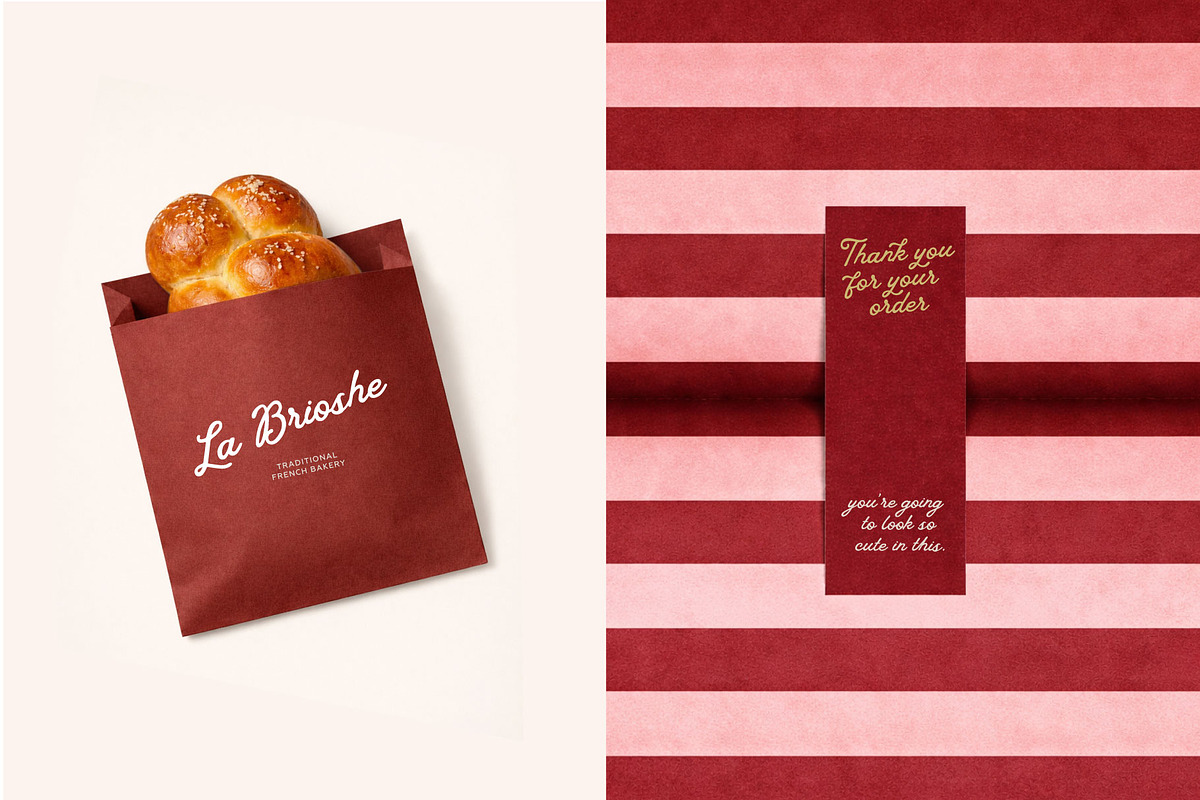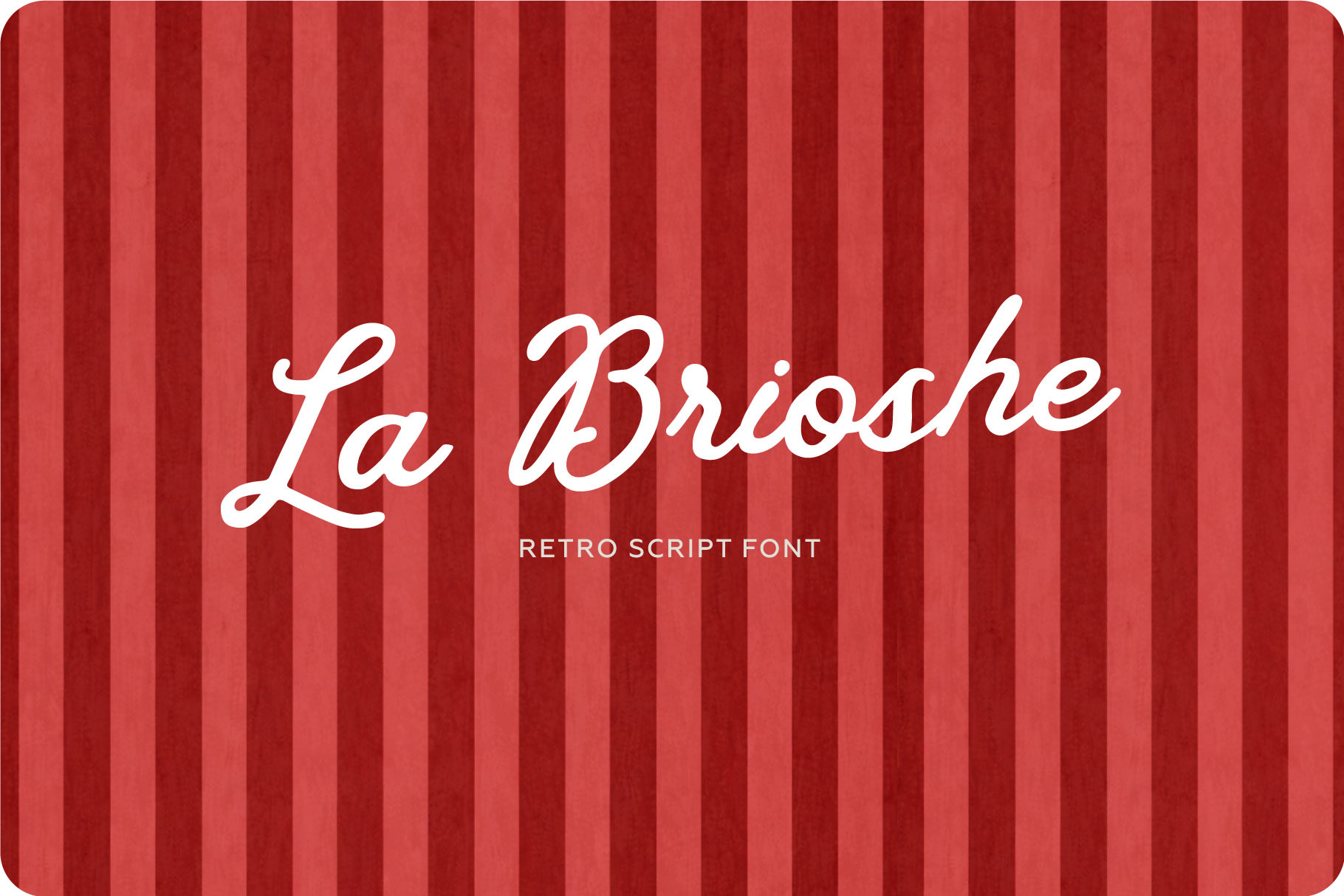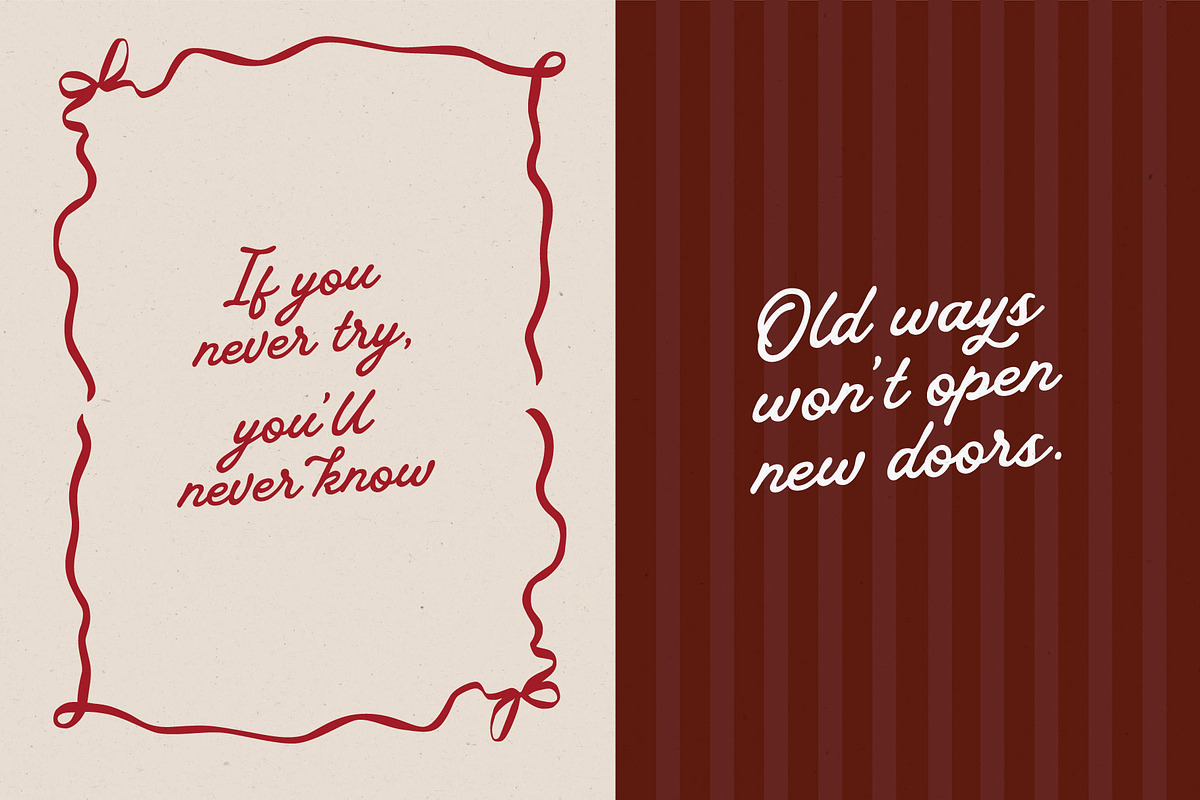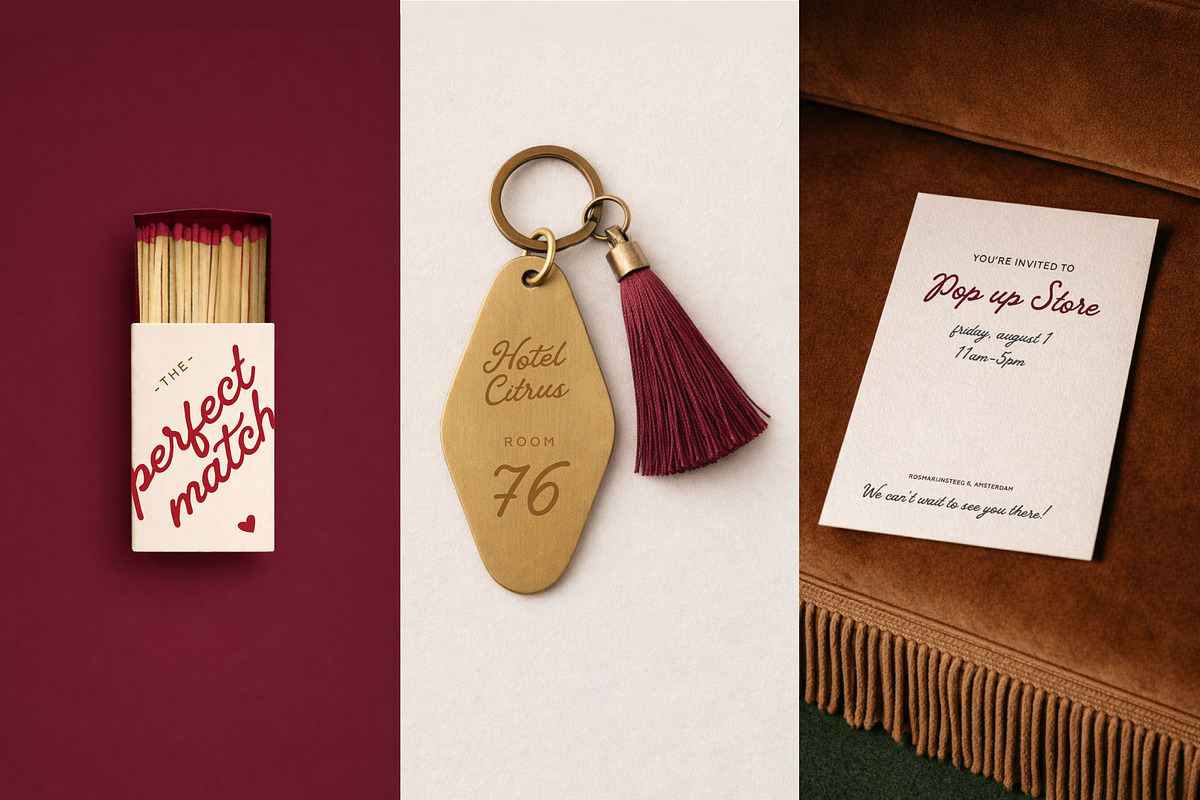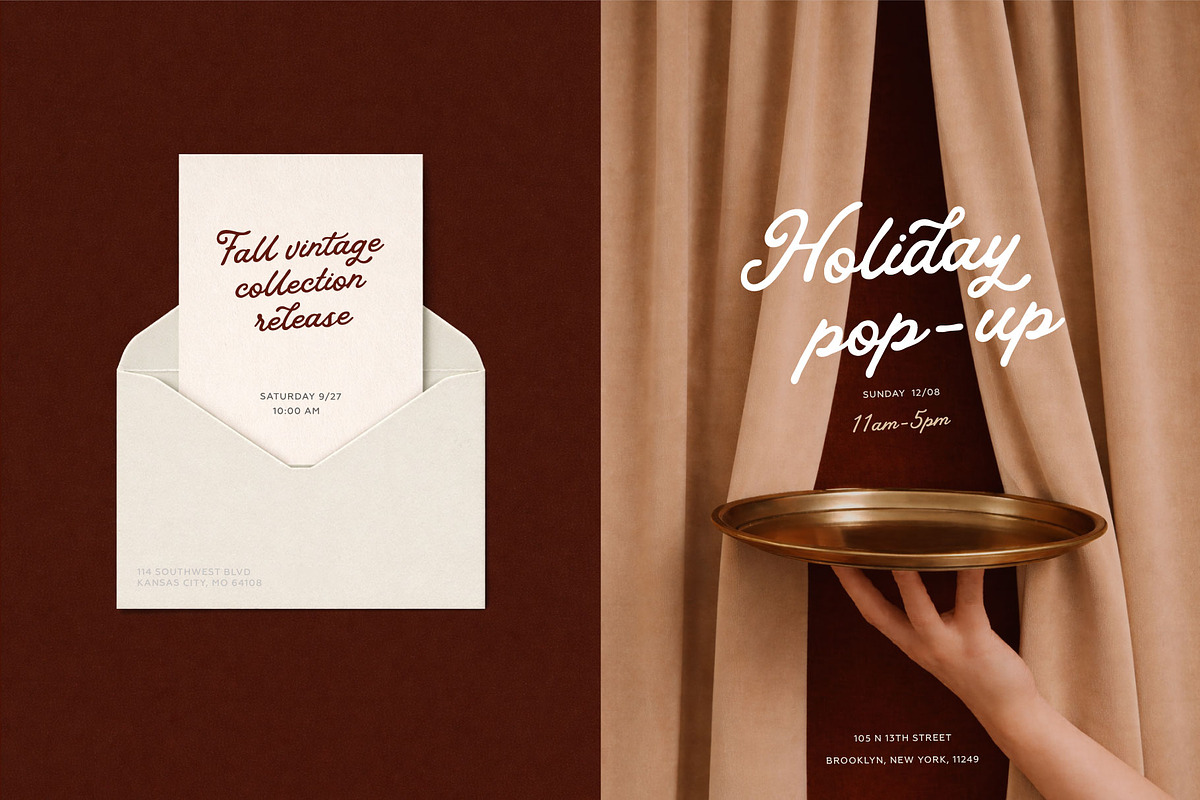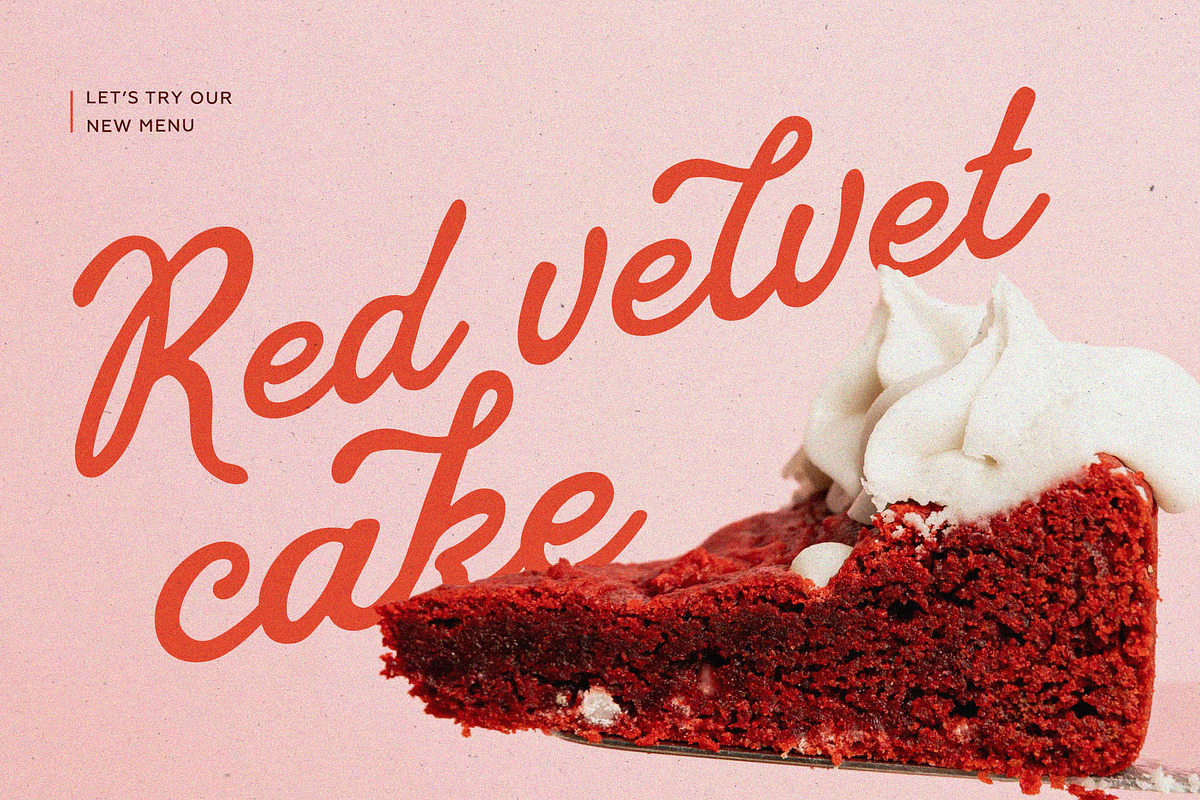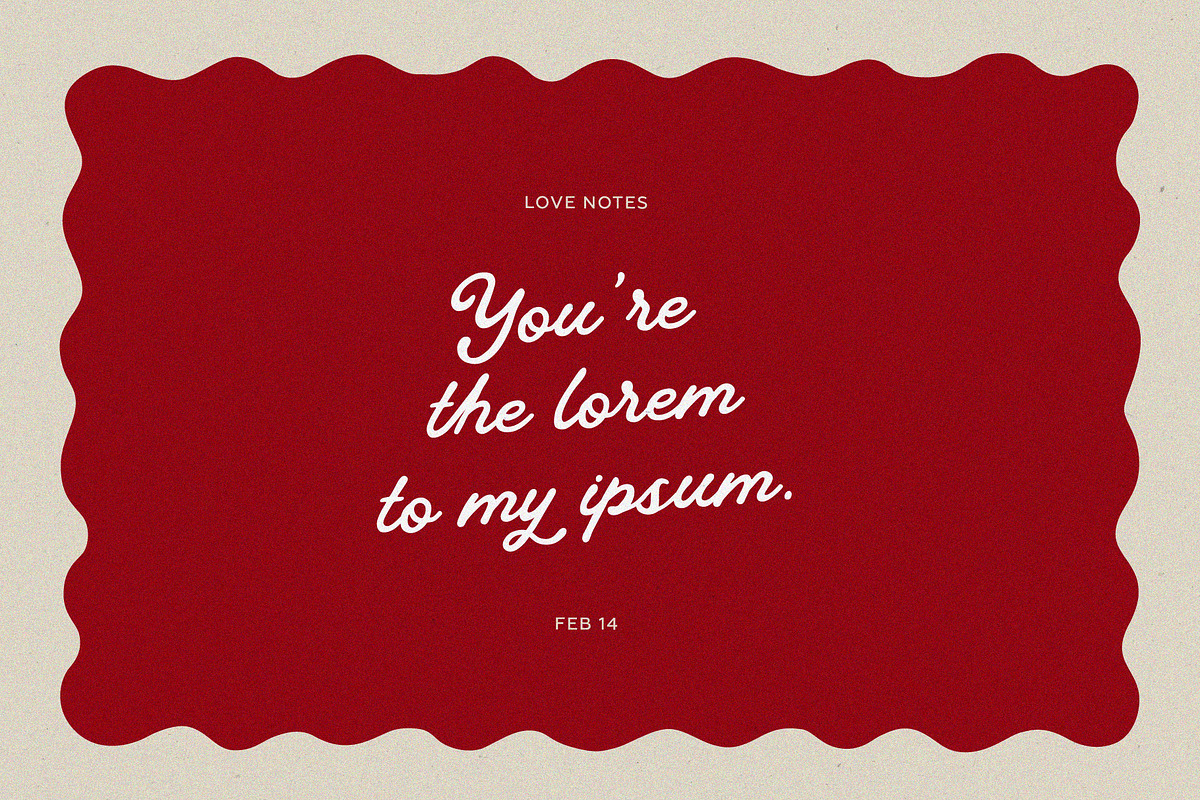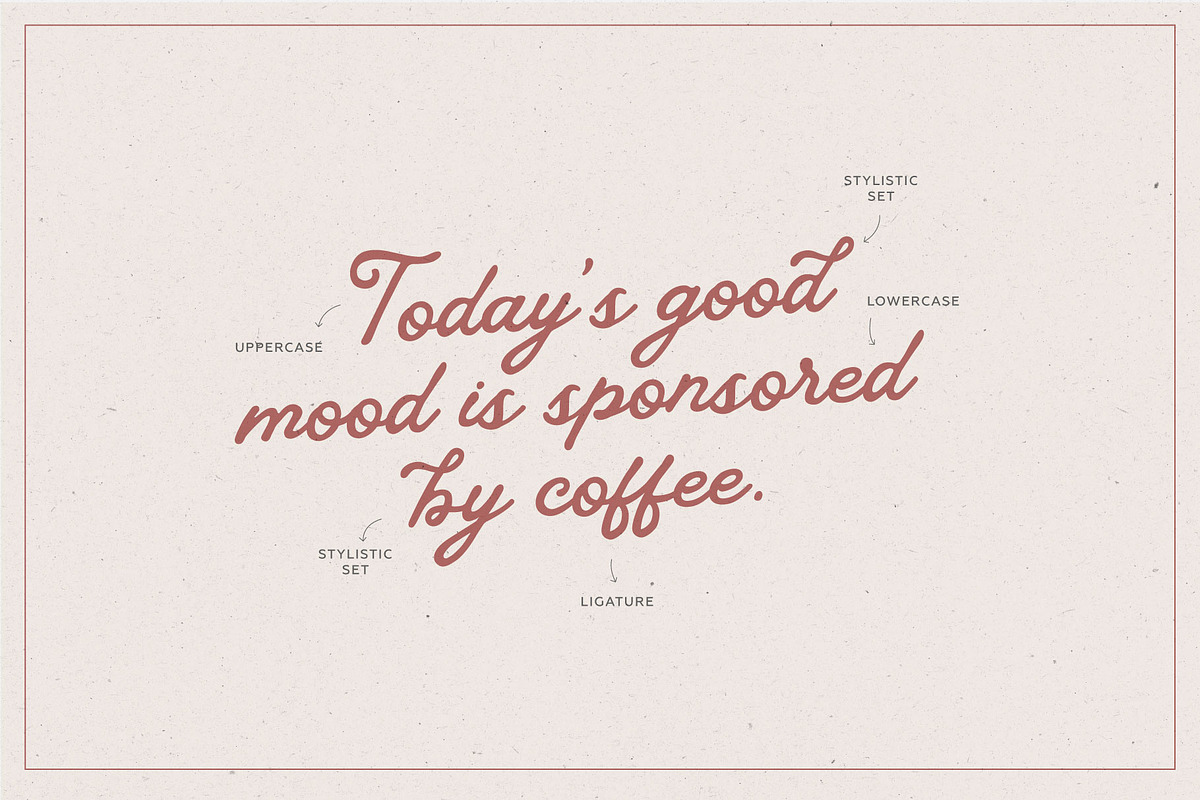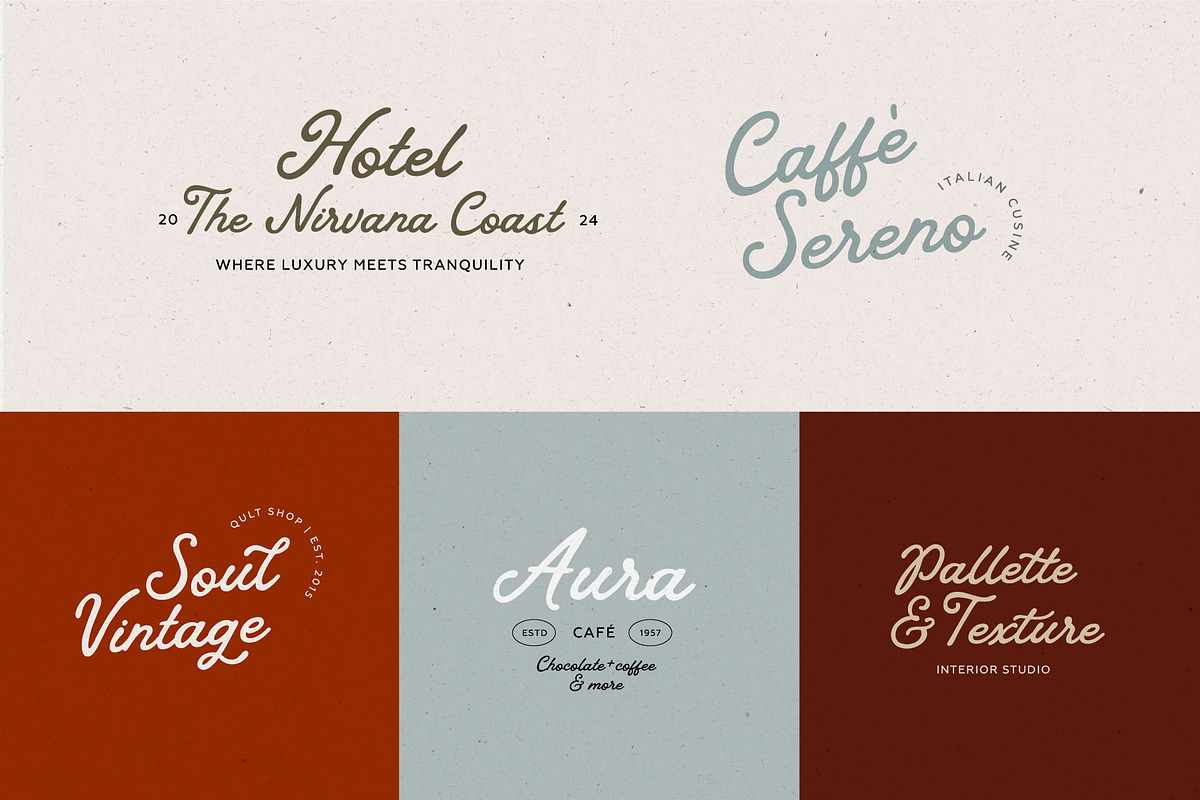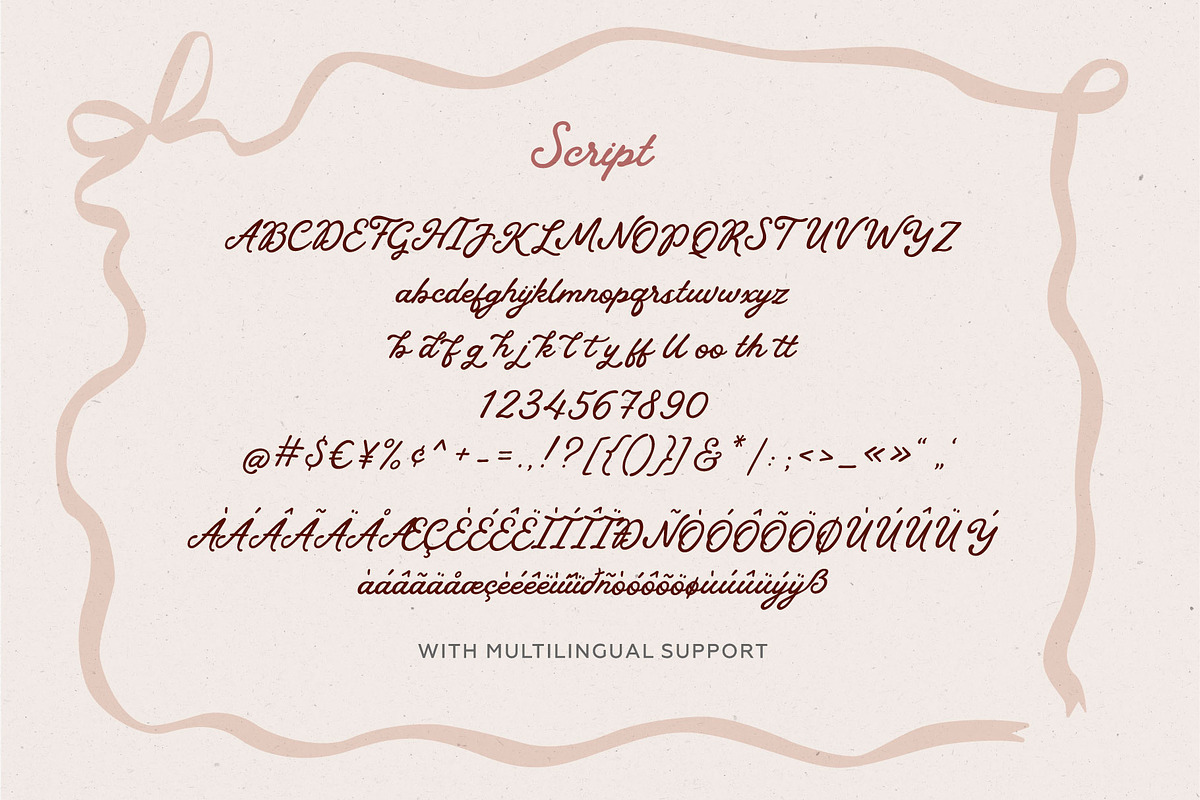
La Brioshe | Script font
Say hello to La Brioshe!
This font captures the essence of a slow Sunday morning. With its friendly imperfections and organic flow, «La Brioshe » is more than just a typeface—it’s a mood. It brings to mind the sound of a coffee machine, the rustle of a newspaper, and the joyful clutter of a breakfast table, making it ideal for branding that seeks to feel personal, authentic, and utterly inviting.